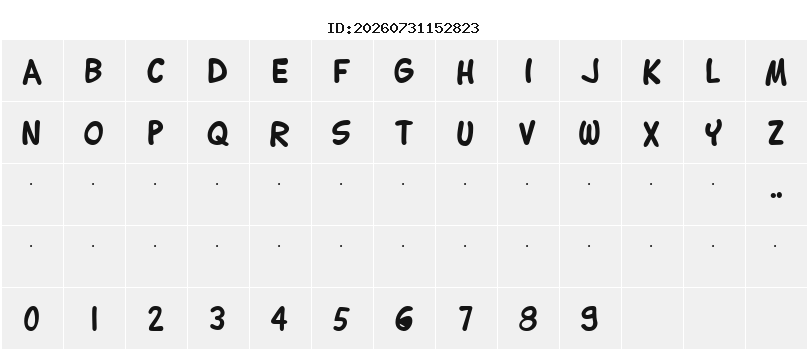
Lettering1 Preview
• Font Name: Lettering1
• Full Font Name: Lettering1 Bold
About Lettering1.ttf
Lettering1.ttf is a modern, elegant sans-serif font designed for ultimate readability and visual harmony. Perfect for branding, headlines, web design, and print materials.